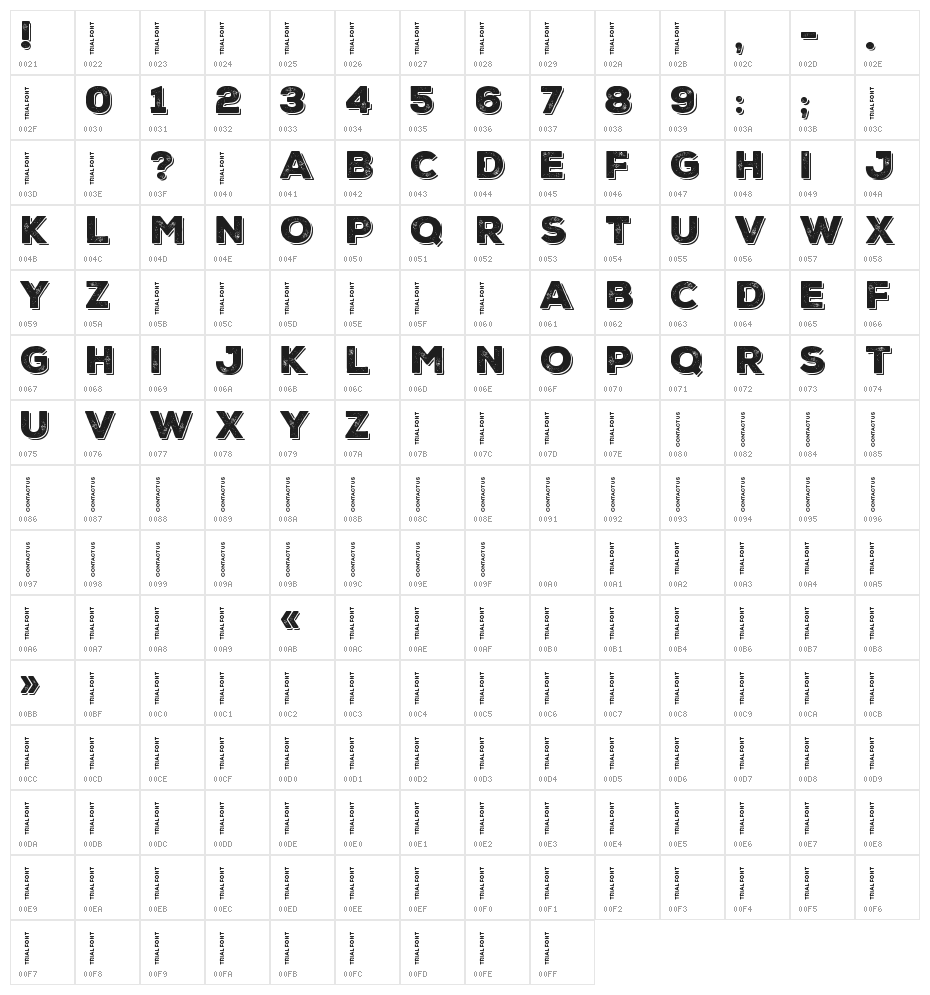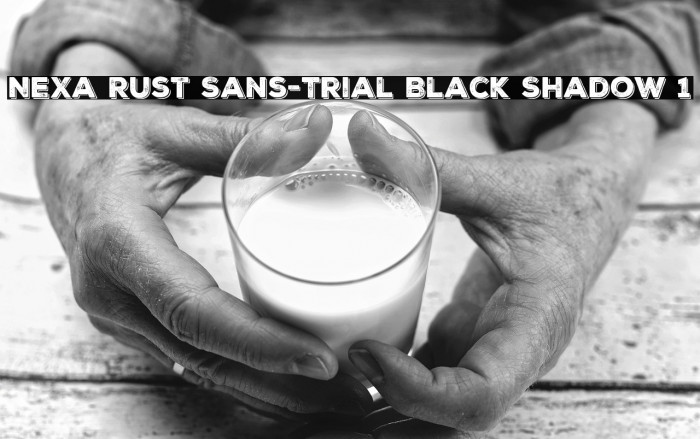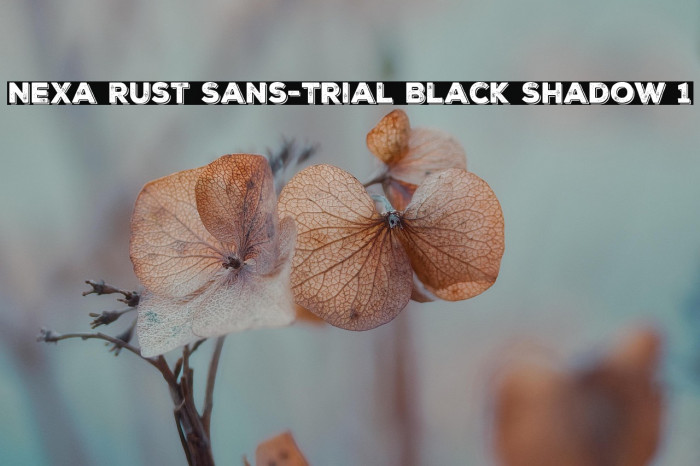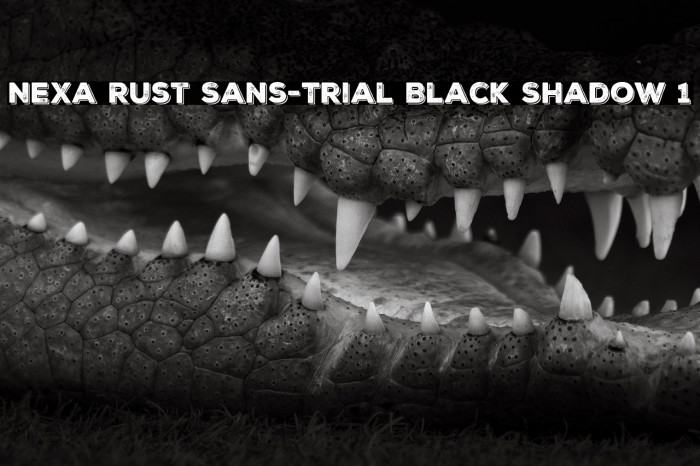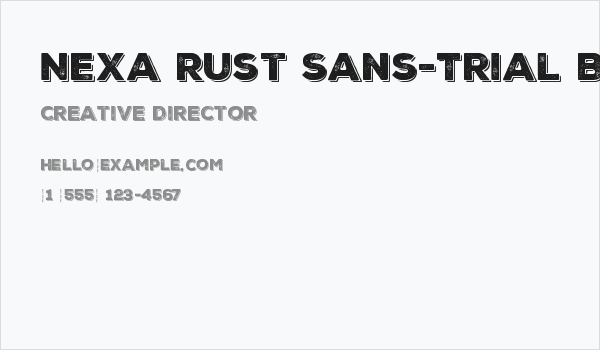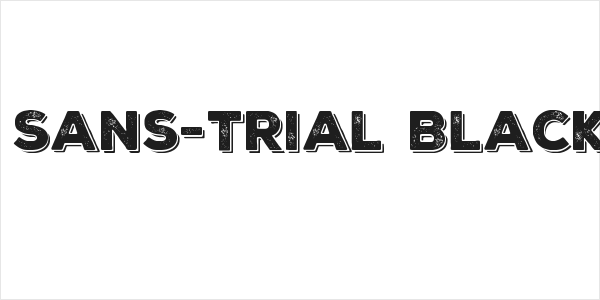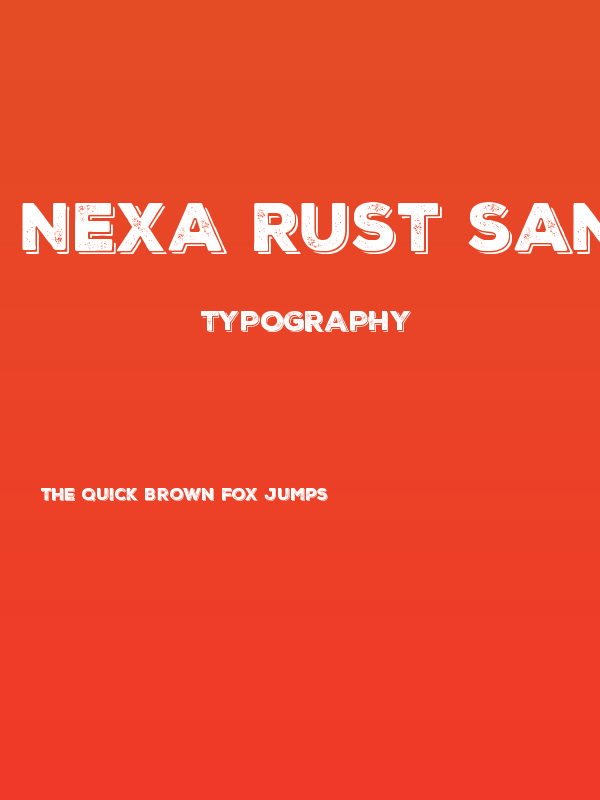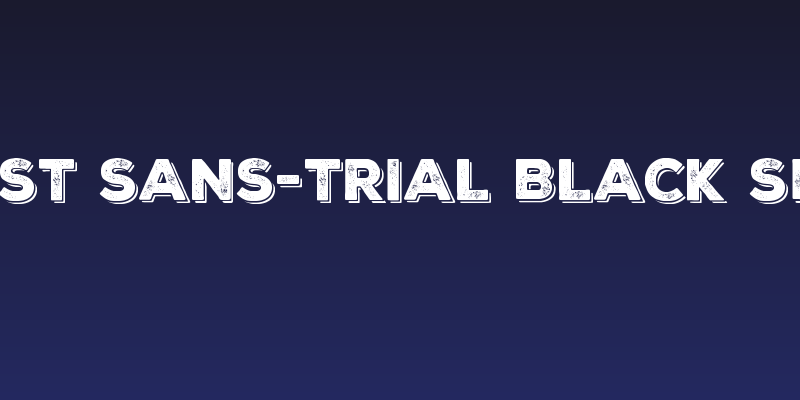
Nexa Rust Sans-Trial Black Shadow 1 Font
Nexa Rust Sans-Trial Black Shadow 1 Description
This font features a bold, shadowed style with a distressed texture, giving it a rugged and vintage appearance. The uppercase letters are prominent and impactful, making them ideal for attention-grabbing designs. The numbers and special characters maintain the same bold and textured style, ensuring consistency across all elements. The font's shadow effect adds depth, making it suitable for dynamic and eye-catching projects. Its distressed look suggests a handcrafted or industrial feel, perfect for designs that require a touch of authenticity and character.
| Proposed Projects | Ideal for posters, branding, headlines, and any design requiring a bold, vintage aesthetic. |